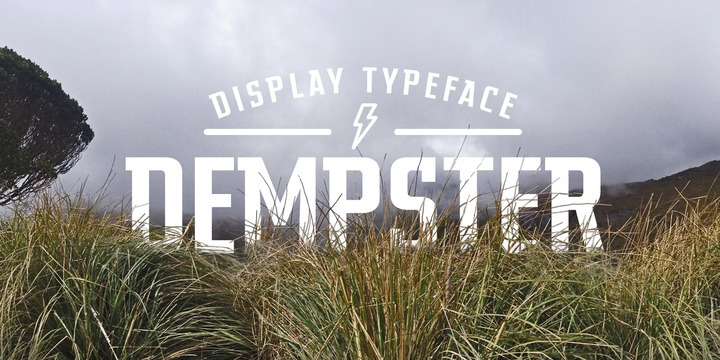
Dempster Font
Dempster Font is perfect for waste management company branding, recycling program materials, environmental cleanup campaigns, municipal service signage, industrial equipment labels, construction site documentation, utility company communications, and public works marketing where reliability and civic responsibility are emphasized.
What makes Dempster Font so exciting is its robust ability to convey dependability and municipal strength through sturdy letterforms that embody the essential nature of public services while maintaining excellent clarity for important civic communications. The solid character design reflects the unwavering reliability expected from essential municipal operations.
The Dempster Font family includes regular, bold, and condensed variants, with industrial-inspired elements and municipal ornaments that provide designers with comprehensive tools for creating authoritative public service branding and civic communication systems.
This dependable typeface represents the backbone of municipal typography, combining civic duty with contemporary design functionality. The Dempster Font Free Download gives public service organizations access to typography that communicates community responsibility and operational excellence.
The font's strong character construction and consistent spacing create immediate associations with reliable municipal services and community infrastructure. Each letterform has been designed to convey the steadfast dependability and professional competence required for essential public services.
Dempster Font excels in creating trustworthy brand identities that inspire confidence in municipal operations and public service delivery. The typeface's authoritative presence makes it ideal for waste management companies, utility providers, and government agencies serving community needs.
From recycling centers to municipal offices, this font delivers the civic authority needed to communicate professional public service and community commitment. The versatile design maintains its reliable character across both traditional government applications and modern digital public service platforms.